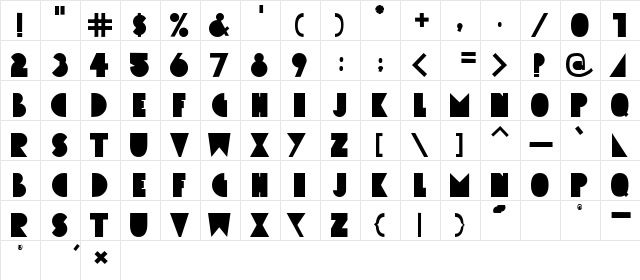
Simcha Regular
Design Context for Simcha Typeface
Simcha is a composed and adaptable typeface that performs quietly and consistently across a wide range of design contexts.